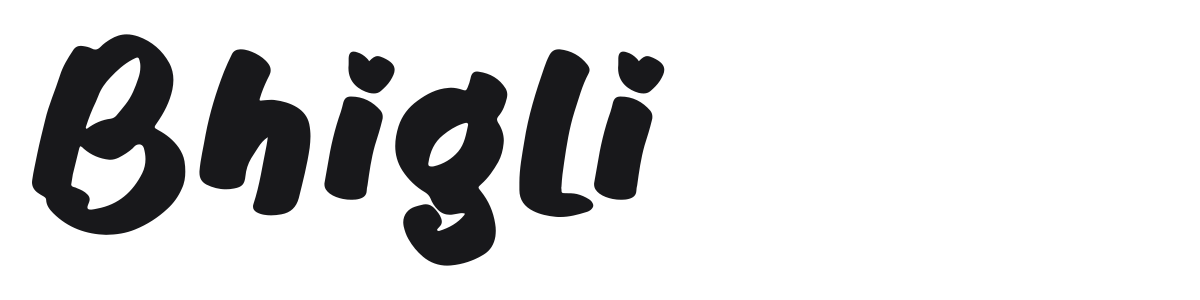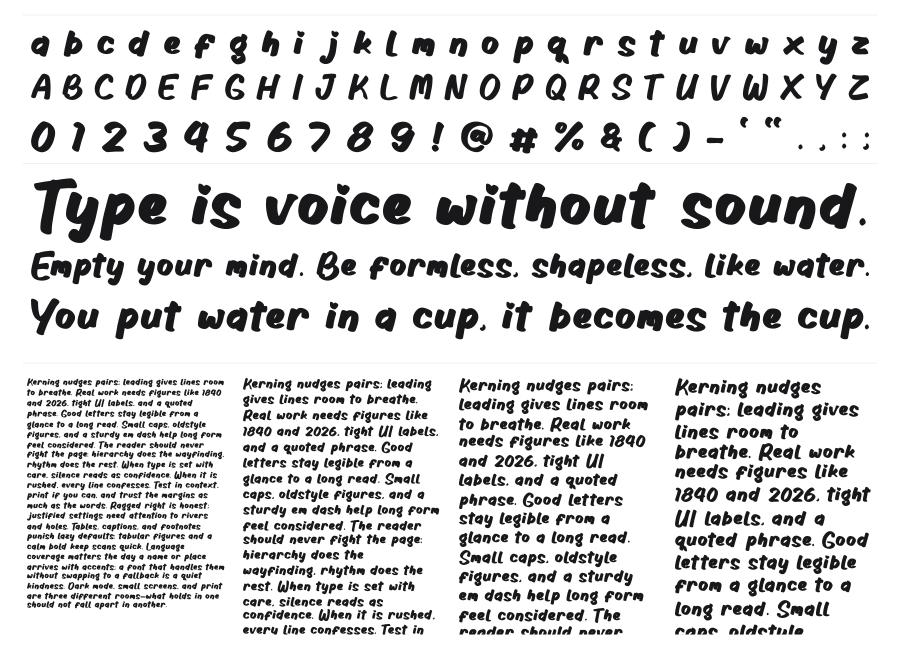
Bhigli
Bhigli is a bold casual script with a chunky, hand-lettered personality and a generous italic lean. The thick rounded strokes and playful heart-shaped details tucked into select characters give it a distinctive, handmade character. It works best at large sizes where its confident energy and organic charm can read clearly.